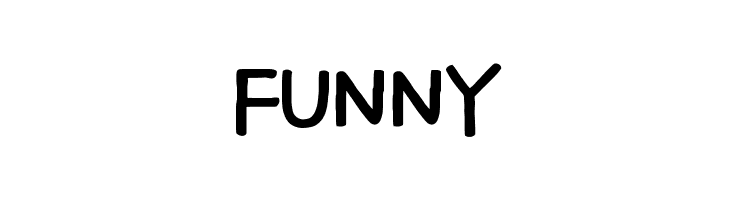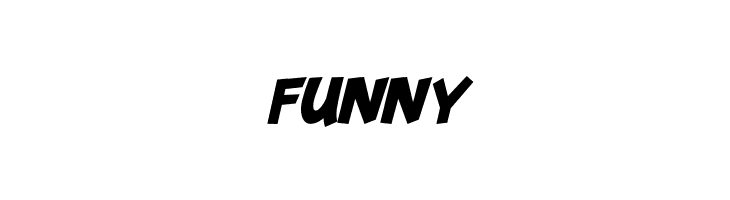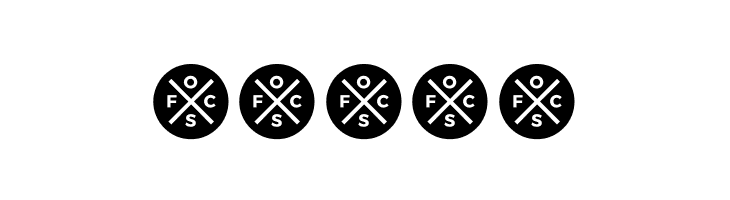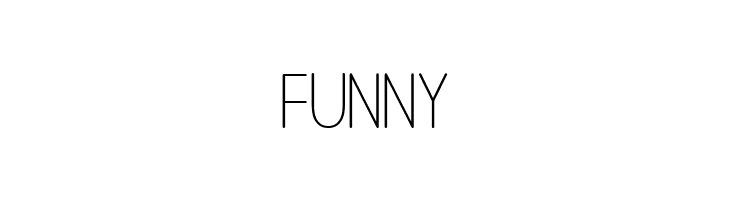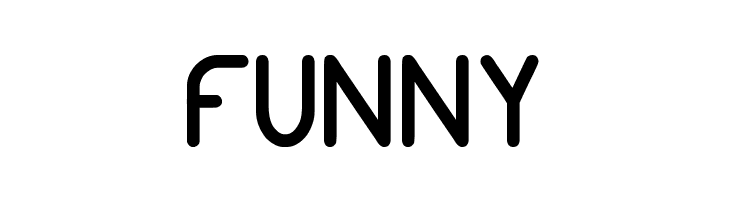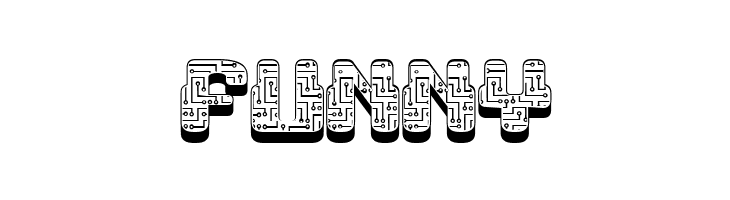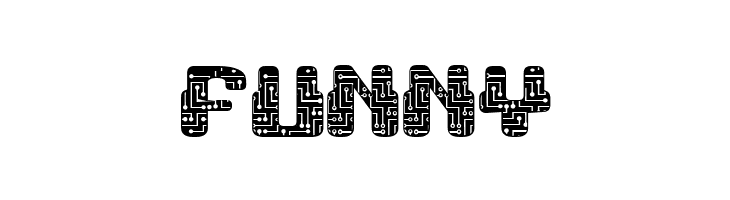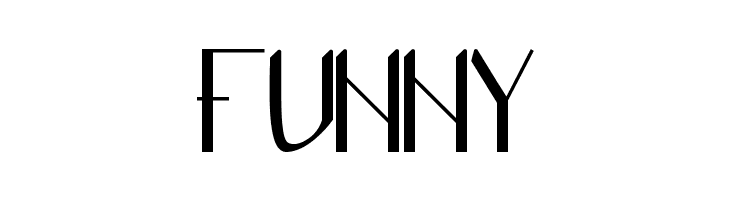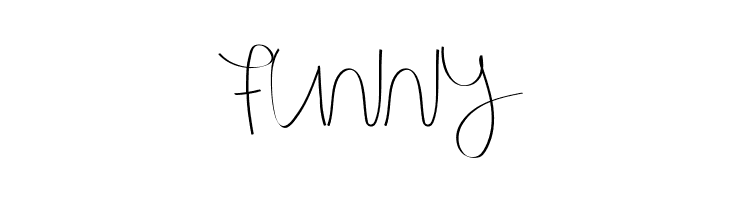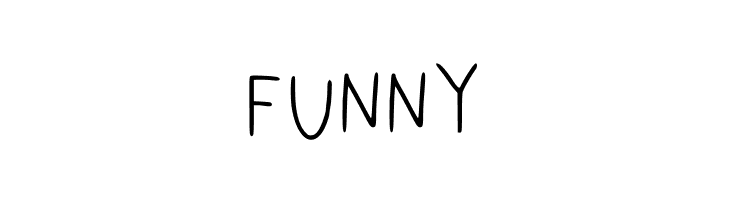
( Fonts by Billy Argel )
Bold, angular font with a dynamic, comic book style.
( Fonts by Inermedia Studio )
A playful, bold, and handwritten font with a casual, beachy vibe.
A playful and elegant cursive font with a hand-drawn charm.
A lively, handwritten brush script font with dynamic, fluid strokes.
A classic serif font with high contrast and elegant, refined letterforms.
Bold, festive handwritten script with decorative swashes.
A modern, elegant font with geometric uppercase and rounded lowercase letters.
A playful, handwritten font with a modern and approachable style.
A playful, handwritten font with tall, narrow letters and a casual style.
A modern, geometric font with consistent line thickness and high legibility.
( Fonts by Wahyu Studio )
Tall, narrow, handwritten script with a casual and playful style.
( Fonts by Ibnu Nur Rahman )
Casual handwritten font with playful, rounded strokes.
A casual, handwritten font with a personal and informal style.
A whimsical and fluid handwritten font with elegant, continuous strokes.
A playful, hand-drawn font with heart motifs and a whimsical style.
An elegant and sophisticated cursive font with flowing, decorative strokes.
A pixelated, retro-style font with a blocky, geometric design.
( Fonts by Abil Shidiq A )
A casual, playful handwritten font with elongated, fluid strokes.
A modern, minimalist font with thin, uniform strokes and balanced spacing.
A geometric, angular font with a futuristic, racing-inspired design.
A bold, maze-patterned decorative font with a modern and artistic style.
A bold, decorative font with a maze-like pattern and three-dimensional appearance.
A playful and elegant script font with a handwritten appearance.
( Fonts by Alexis Thompson )
A playful, handwritten font with irregular, organic strokes.
A bold, angular font with an urban, hand-crafted aesthetic.
A bold, angular font with a modern, urban style.
A playful, hand-drawn font with rounded edges and a whimsical style.
A modern, rounded font with clean lines and even spacing.
A casual, handwritten font with a modern, flowing style.